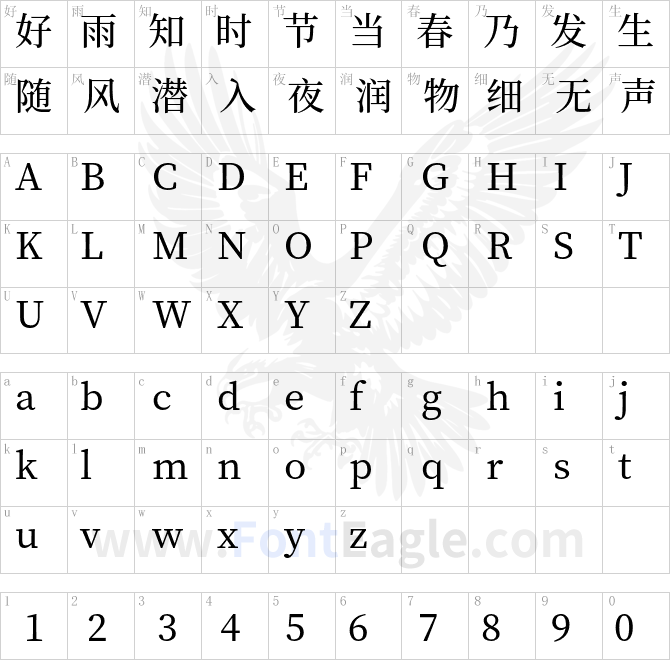
思源宋体Adobe版SourceHanSerifSC-Medium is a great font, widely used in graphic design, single-page menu design, poster design and other fields, and is deeply loved by designers.思源宋体Adobe版SourceHanSerifSC-Medium download.